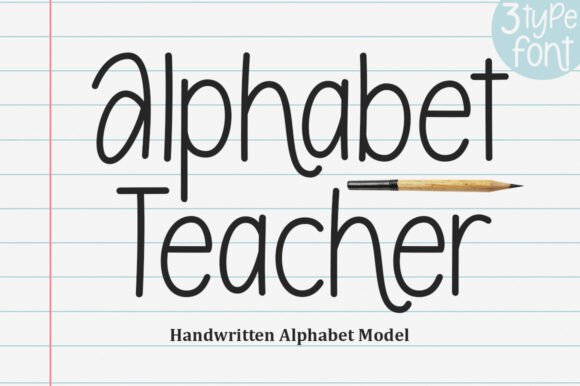
Introducing Alphabet Teacher: The Elegantly Modern Font for Creative Expression
In the world of typography, a font can make all the difference in conveying the tone and personality of a brand, project, or message. Among the numerous fonts available, Alphabet Teacher stands out as a unique and versatile choice for creative expression. This elegantly modern and casually playful font is designed to infuse charm into your projects, making it perfect for a wide range of applications.
The Design and Features of Alphabet Teacher
Alphabet Teacher boasts a regular design with a captivating swash that enhances its allure. The font’s elegant and modern aesthetic makes it suitable for various creative projects, from logo designs to wedding invitations, headlines, and more. The swash feature adds a touch of sophistication and flair, allowing you to add personality to your work.
One of the key features of Alphabet Teacher is its versatility. The font can be used in different contexts, from formal to informal, and can adapt to various design styles. Whether you’re looking to create a luxurious brand identity or a playful poster, Alphabet Teacher is an excellent choice.
Applications of Alphabet Teacher
Alphabet Teacher is a multifaceted font that can be used in a variety of applications. Here are some of the ways you can utilize this font:
- Logo Designs: Create stunning logos that capture the essence of your brand with Alphabet Teacher. The font’s elegant and modern design makes it perfect for businesses, startups, and entrepreneurs looking to establish a strong brand identity.
- Wedding Invitations: Add a touch of romance and whimsy to your wedding invitations with Alphabet Teacher. The font’s playful and elegant design makes it ideal for wedding stationery, save-the-date cards, and more.
- Headlines: Create attention-grabbing headlines with Alphabet Teacher. The font’s bold and modern design makes it perfect for newspapers, magazines, and online publications.
- Product Packaging: Add personality to your product packaging with Alphabet Teacher. The font’s unique and playful design makes it suitable for food labels, product tags, and more.
- Signage: Make a statement with Alphabet Teacher on signage. The font’s bold and elegant design makes it perfect for billboards, posters, and in-store displays.
- Book Covers: Create enthralling book covers with Alphabet Teacher. The font’s modern and playful design makes it suitable for fiction, non-fiction, and children’s books.
- Posters: Design inspiring posters with Alphabet Teacher. The font’s bold and elegant design makes it perfect for motivational quotes, event posters, and more.
- Signatures: Establish an autograph-like impact in signatures with Alphabet Teacher. The font’s unique and playful design makes it suitable for personal and professional signatures.
- Quotes: Add a touch of whimsy to your quotes with Alphabet Teacher. The font’s elegant and modern design makes it perfect for social media posts, blogs, and more.
The Benefits of Using Alphabet Teacher
Using Alphabet Teacher in your creative projects offers several benefits. Here are some of the advantages of choosing this font:
- Unique and Versatile: Alphabet Teacher is a unique and versatile font that can be used in various applications. Its elegant and modern design makes it suitable for different design styles and contexts.
- Elegant and Modern: The font’s elegant and modern aesthetic makes it perfect for brands and projects looking to establish a sophisticated and contemporary image.
- Playful and Whimsical: Alphabet Teacher’s playful and whimsical design makes it suitable for projects that require a touch of personality and fun.
- High-Quality: The font is designed with high-quality and precision, ensuring that it looks great in various sizes and resolutions.
Tips for Using Alphabet Teacher Effectively
To get the most out of Alphabet Teacher, here are some tips for using the font effectively:
- Experiment with Different Sizes: Alphabet Teacher looks great in various sizes, from small to large. Experiment with different sizes to find the perfect fit for your project.
- Pair with Other Fonts: Pair Alphabet Teacher with other fonts to create a unique and visually appealing combination.
- Use the Swash Feature: Take advantage of the font’s swash feature to add a touch of sophistication and flair to your project.
- Keep it Simple: Don’t overcomplicate your design. Keep it simple and elegant to let Alphabet Teacher shine.
Alphabet Teacher is an elegantly modern and casually playful font that can infuse charm and personality into your creative projects. With its versatile design, the font is suitable for various applications, from logo designs to wedding invitations, headlines, and more. By using Alphabet Teacher, you can add a touch of whimsy and sophistication to your work, making it perfect for creatives, designers, and entrepreneurs looking to establish a strong brand identity.
- What are the features of Alphabet Teacher? The font boasts a regular design with a captivating swash that enhances its allure.
- What are the applications of Alphabet Teacher? Alphabet Teacher can be used in various applications, including logo designs, wedding invitations, headlines, product packaging, signage, book covers, posters, and more.
- What are the benefits of using Alphabet Teacher? The font offers several benefits, including its unique and versatile design, elegant and modern aesthetic, playful and whimsical touch, and high-quality precision.